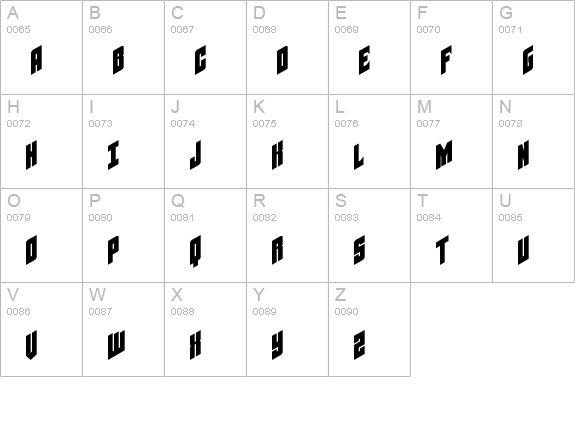
Galaxy Force Font Details
Galaxy Force is a donationware font in the Modern > Sci-Fi category, designed by Iconian. It has been downloaded 49 times and is available for Windows, Mac and Linux.
Introducing Galaxy Force font, a mesmerizing typeface that exudes cosmic energy and futuristic vibes. Perfect for space-themed projects, sci-fi designs, or anything that needs a touch of otherworldly charm. This bold and dynamic font features sleek lines and sharp edges that give it a modern and high-tech look.